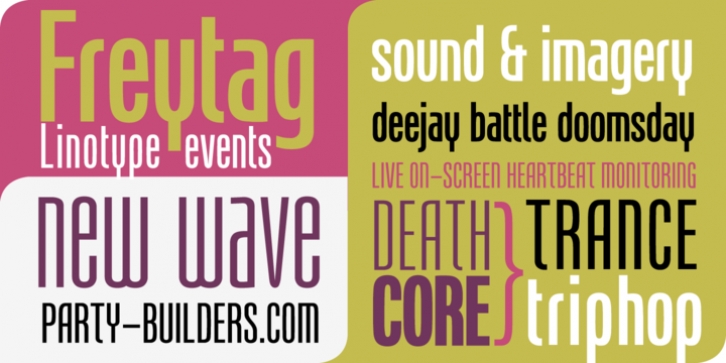
Linotype Freytag is a condensed display face with simple, geometric shapes. With its highly readable and trendy letterforms, it is perfect for flyers, advertising, packaging, posters and magazine headlines.